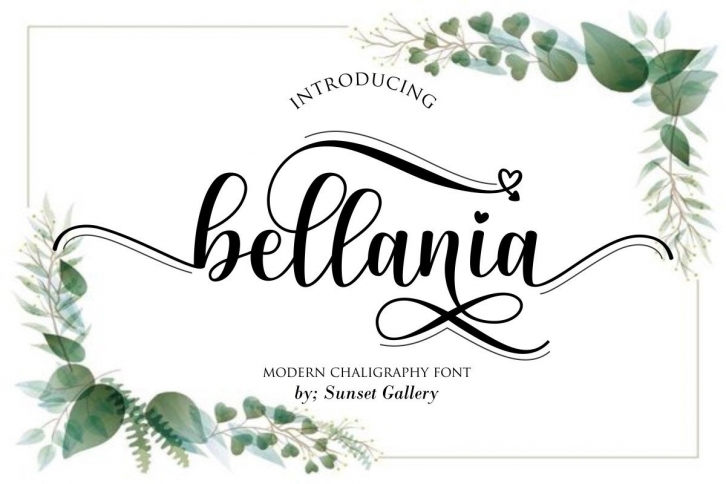
Bellania is a beautiful and refined script font. It has a classy, elegant and modern look that can be used for a variety of design ideas. Bellania is PUA encoded which means you can access all of the amazing glyphs and ligatures with ease!